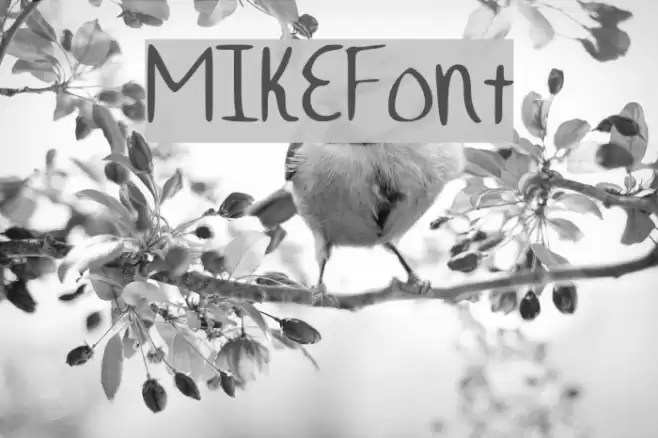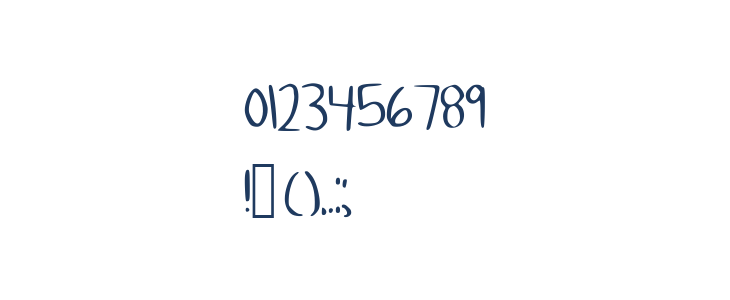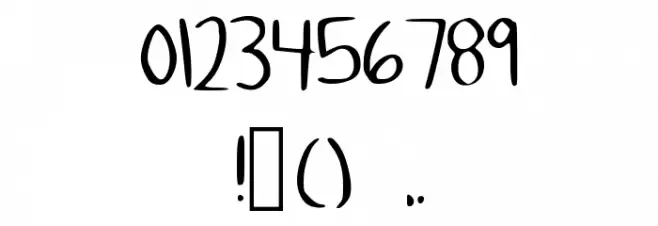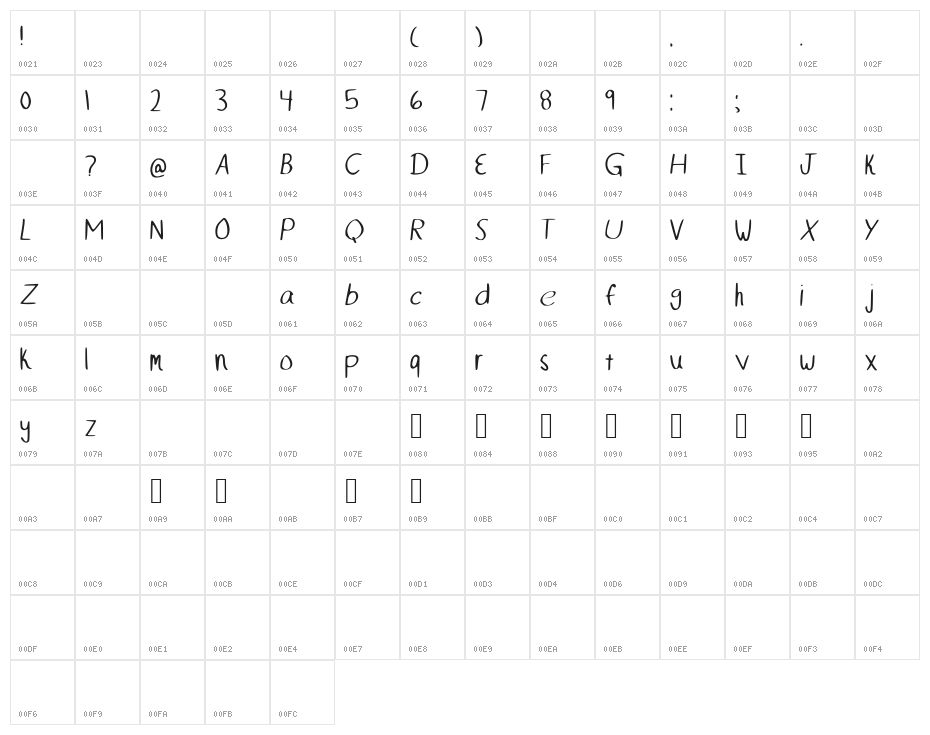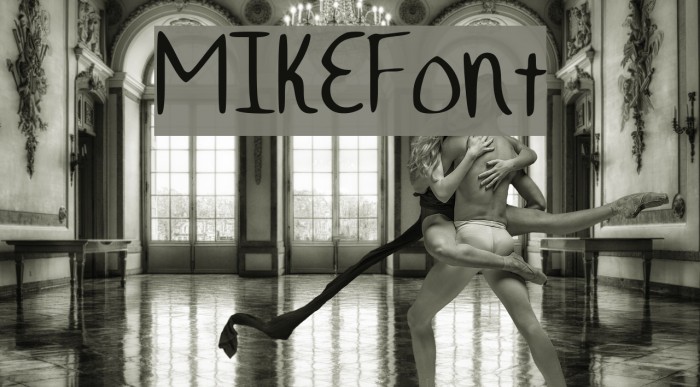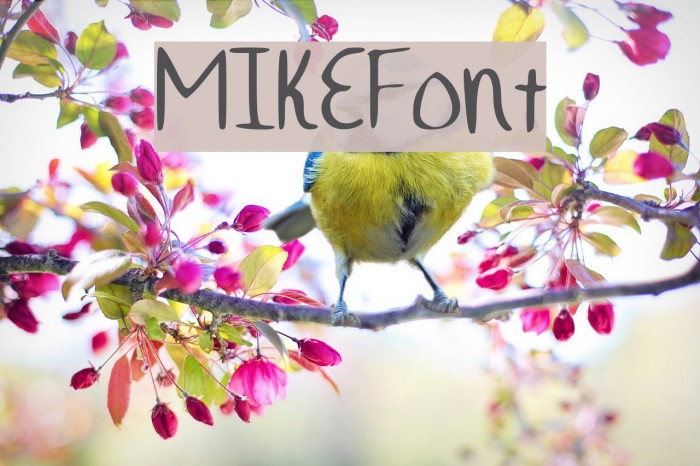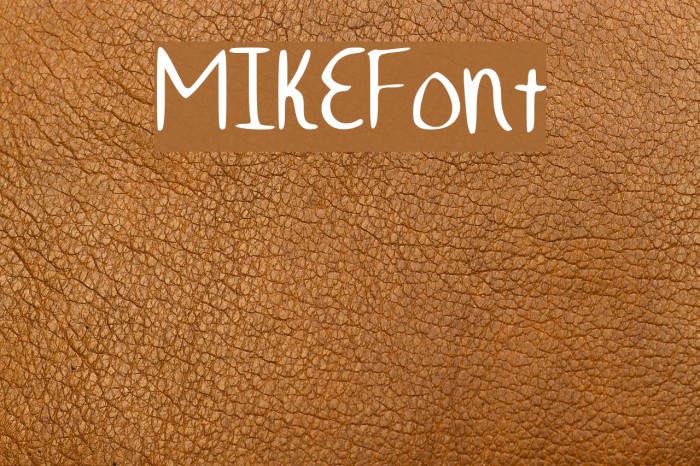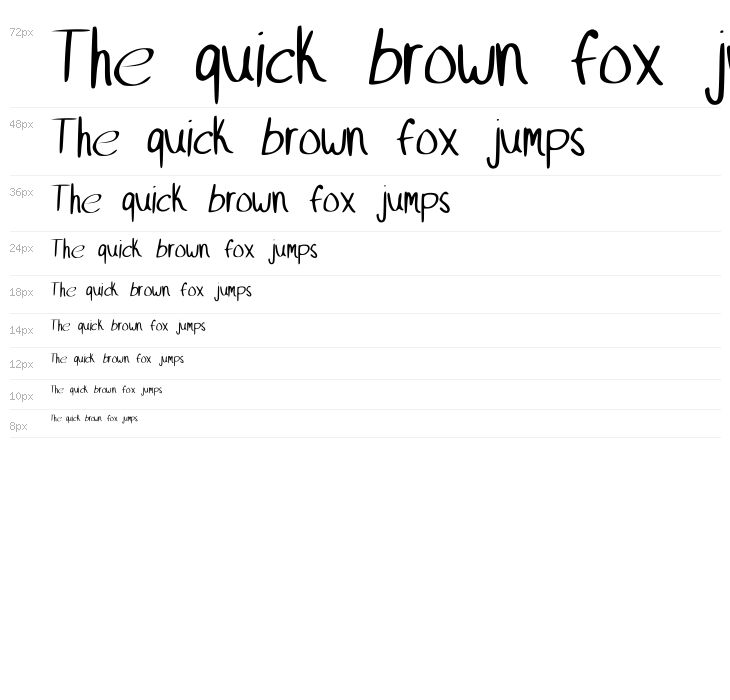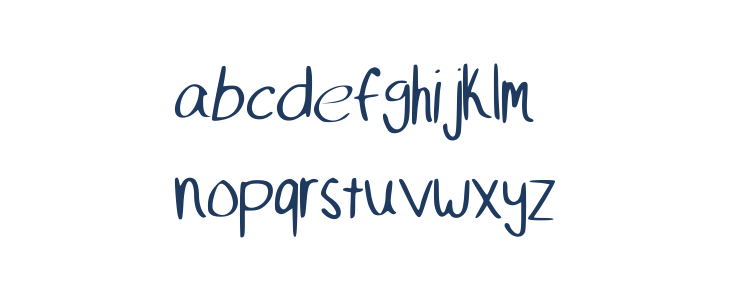
MIKEFont Font
MIKEFont Description
This playful and casual font features a handwritten style with a friendly and approachable appearance. The characters are slightly irregular, adding a personal touch that mimics natural handwriting. The strokes are smooth and rounded, giving the font a warm and inviting feel. The uppercase and lowercase letters maintain a consistent style, with a slight slant that enhances the informal look. The numbers and special characters are designed to match the overall aesthetic, ensuring a cohesive appearance across all text. This font is perfect for projects that require a personal, human touch.
A playful, handwritten font with smooth, rounded strokes and a casual feel from Handwritten fonts.
- Proposed Projects: Ideal for greeting cards, personal invitations, children's books, and casual branding.
- Overall Style: Casual
- Use Case: Greeting cards, Invitations, Children's books